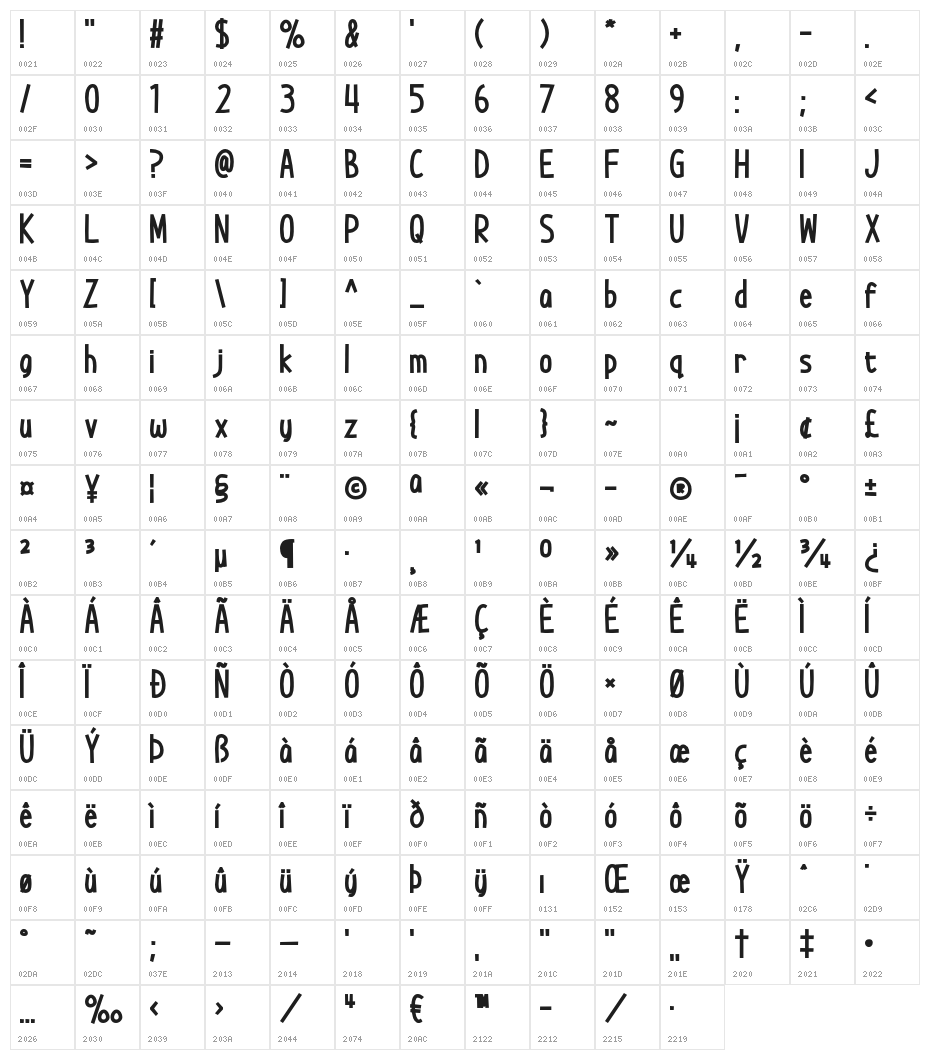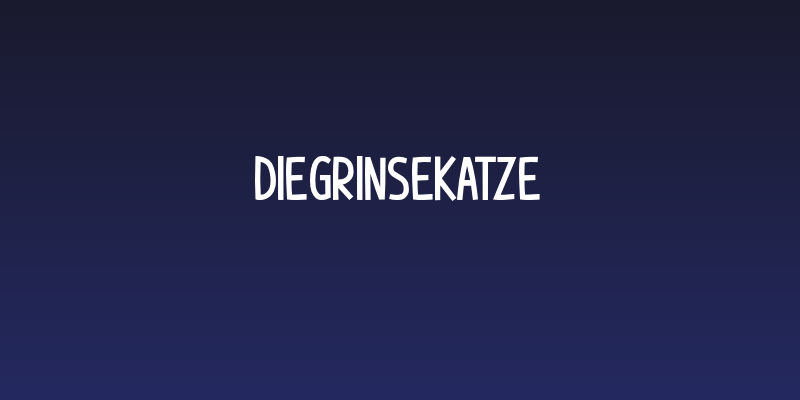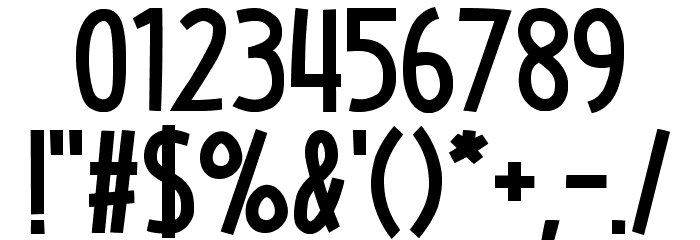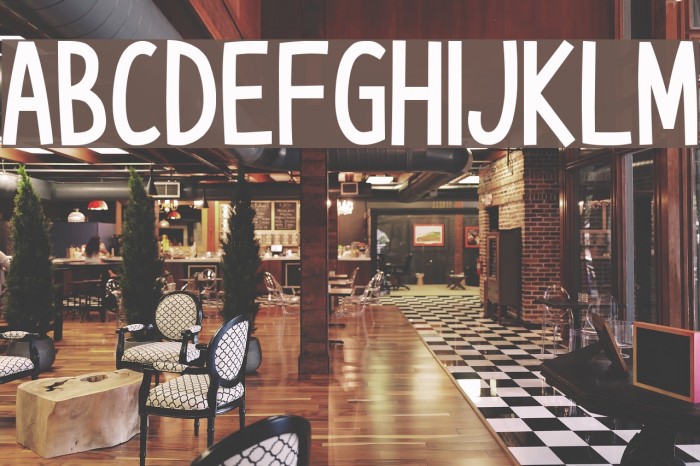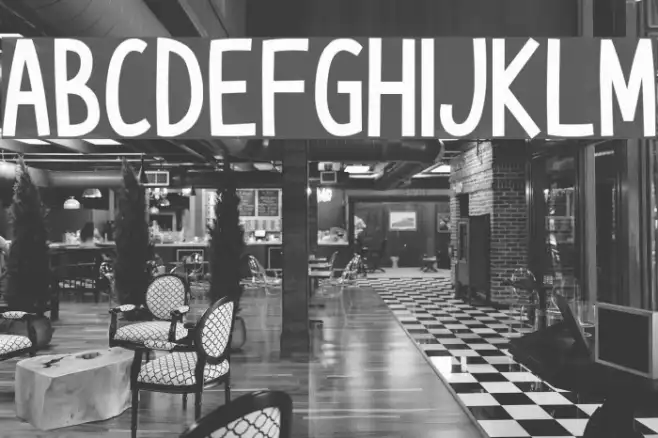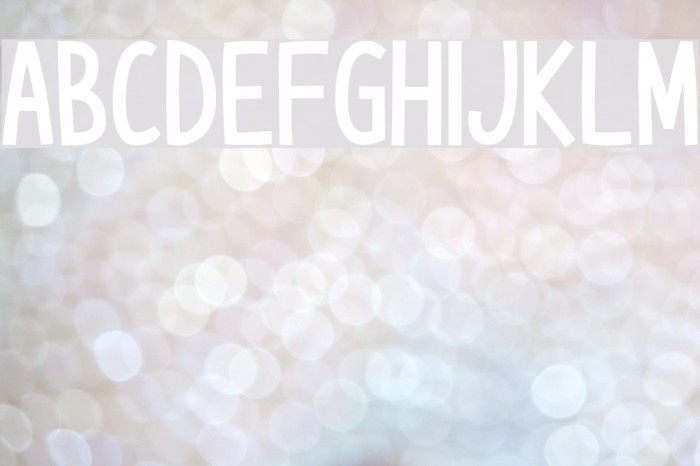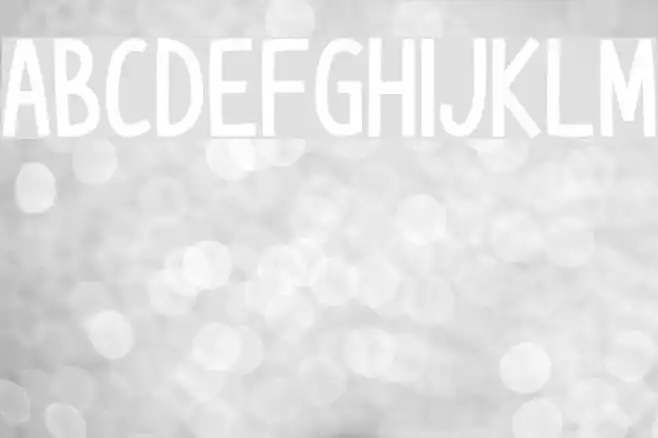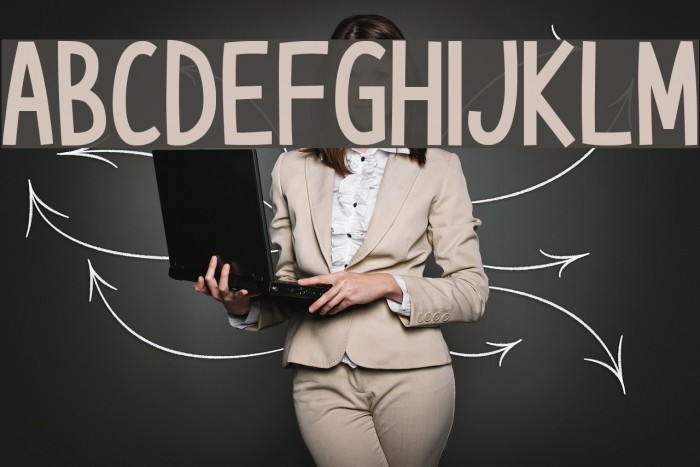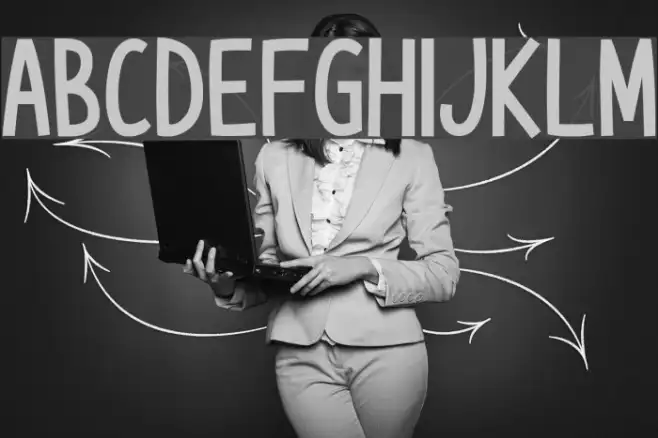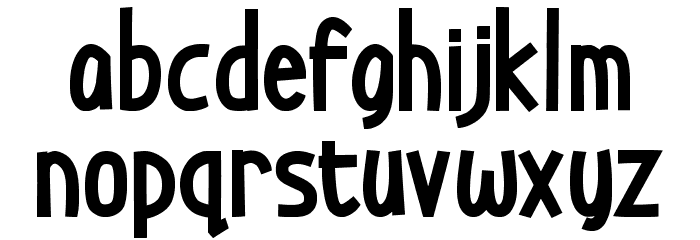
DieGrinsekatze Font
DieGrinsekatze Description
This font features a playful and whimsical design, characterized by its irregular and slightly tilted letterforms. The strokes are bold and have a hand-drawn quality, giving it a casual and friendly appearance. The uppercase and lowercase letters maintain a consistent style, with rounded edges and a slightly uneven baseline, adding to its charm. The numerals and special characters follow the same playful aesthetic, making it suitable for creative and informal applications.
| Overall Style | Playful |
| Proposed Projects | Ideal for children's books, playful branding, greeting cards, and casual posters. |